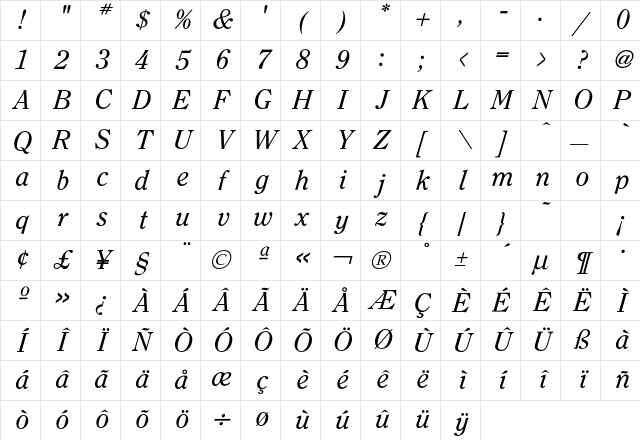
Clearface RegularItalic
Style: RegularItalic
Clearface RegularItalic
Complete Clearface RegularItalic glyph index. Displaying only characters natively supported by Clearface RegularItalic font.
Design Context for Clearface
Clearface is a composed and adaptable typeface that performs quietly and consistently across a wide range of design contexts. The slanted form adds forward momentum and visual energy.
Pro Tip: Use Clearface for emphasis, pull quotes, and subheadings where its slanted energy can add rhythm to the layout.